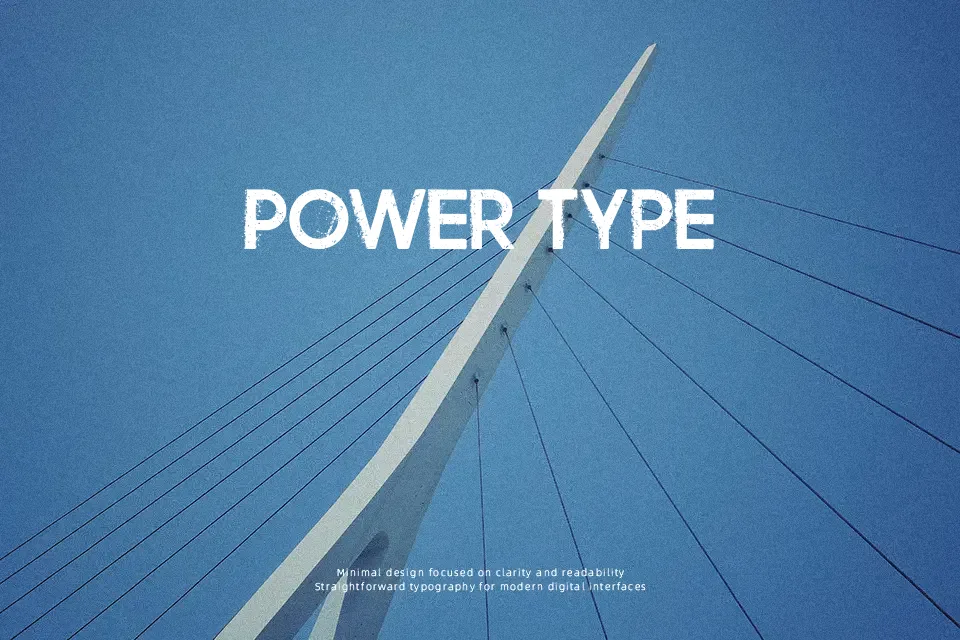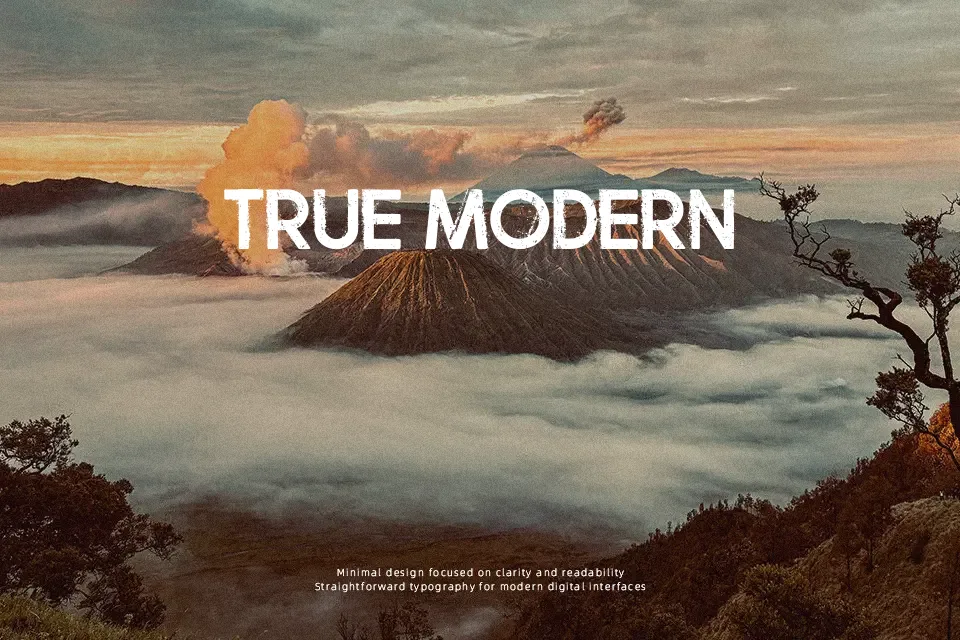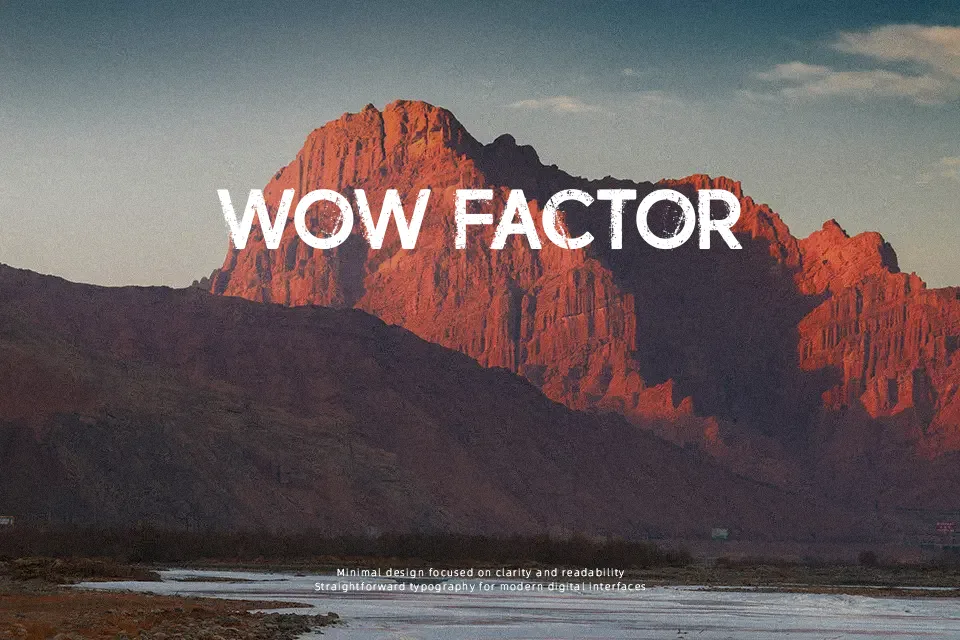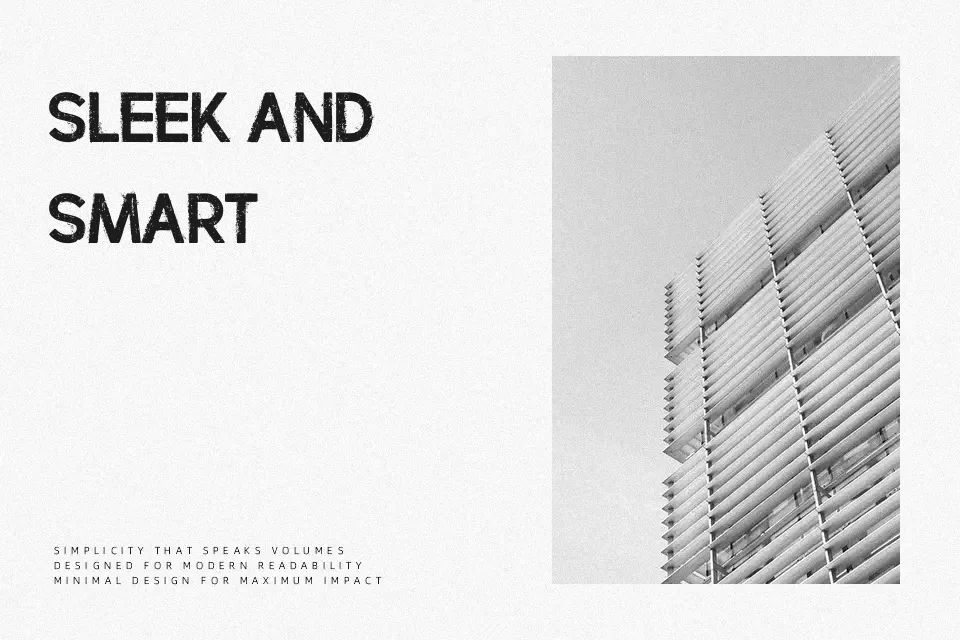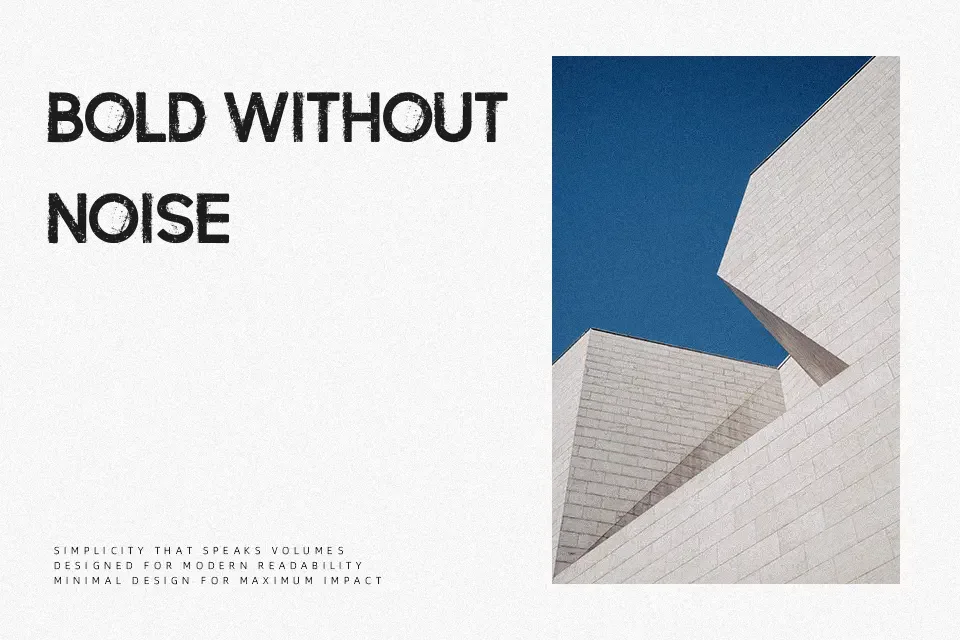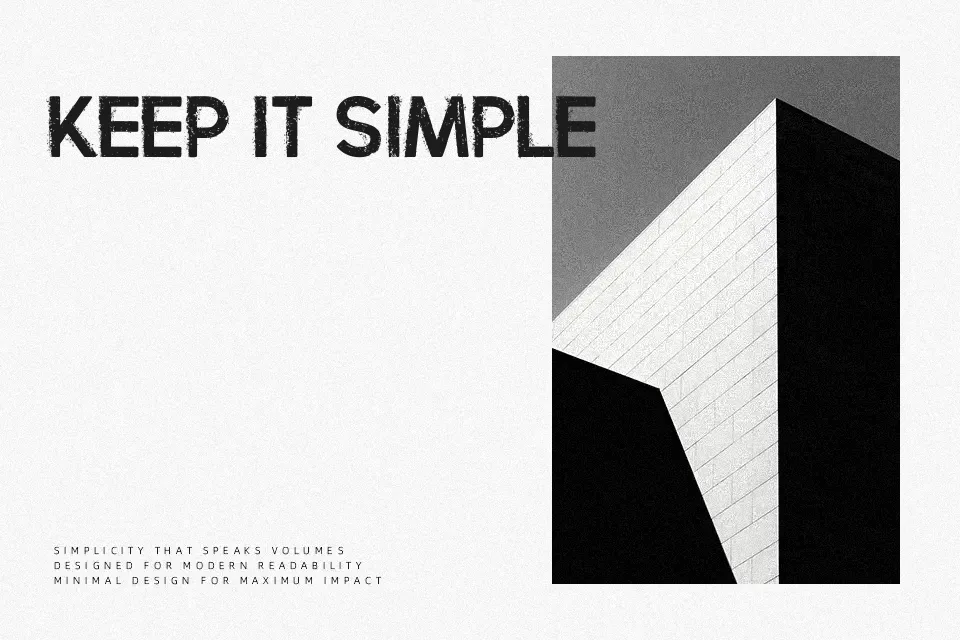
Charbroil Font
Charbroil Font showcases a rugged display style built upon dense sans serif capitals featuring eroded edges and granular internal distressing. Each glyph maintains uniform stroke thickness with compact character spacing, resulting in a bold, compact typographic rhythm. The letterforms excel in prominent placements such as craft packaging, event flyers, and outdoor branding where heavy visual presence is required. However, the granular weathering significantly hinders legibility in small captions, making the typeface unsuitable for continuous body text or dense paragraphs. When deployed at large scales, the distressed details preserve distinct character silhouettes without sacrificing visual impact.
Best For: vintage food packaging,craft brewery labels,music festival posters,apparel graphics
Not Ideal For: long body paragraphs,mobile interface text,legal documents,small print captions